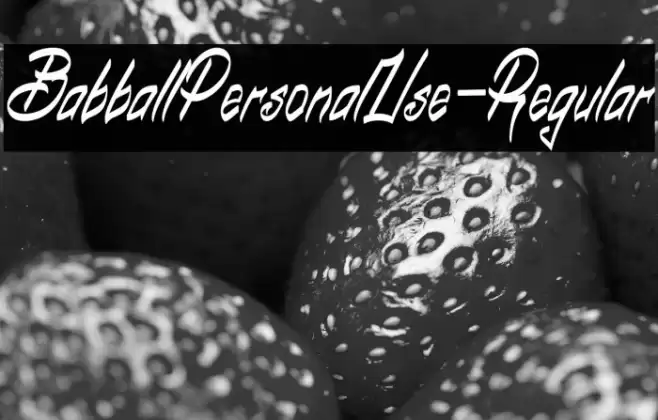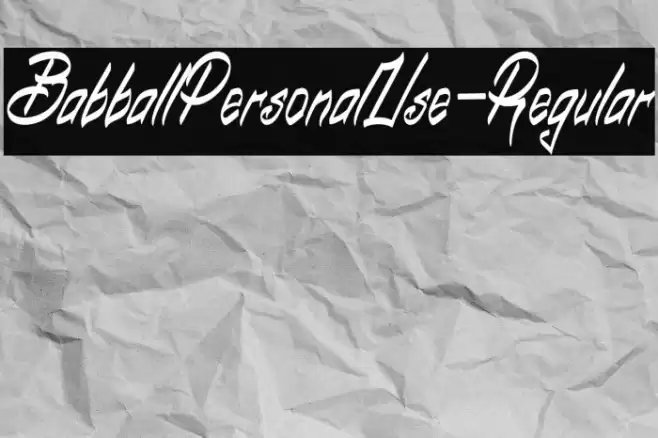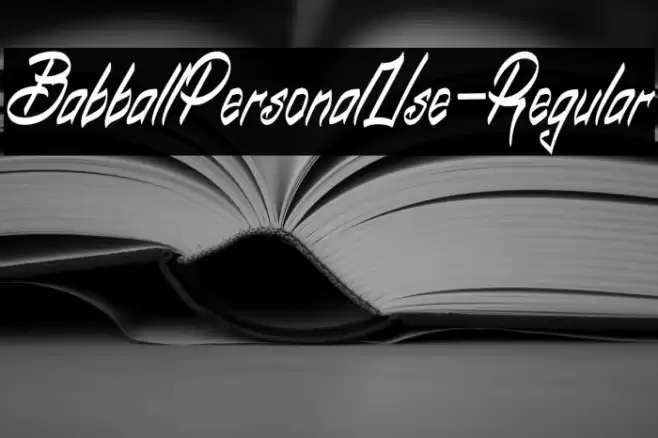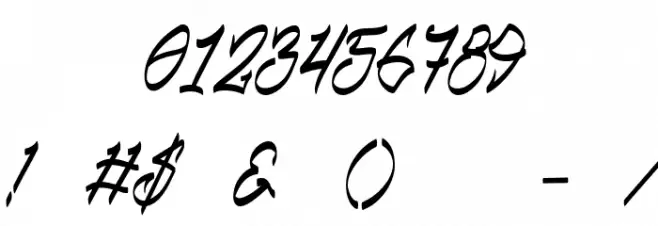
BabballPersonalUse-Regular Font
BabballPersonalUse-Regular Description
This font exhibits a dynamic and flowing script style, characterized by its elegant and fluid strokes. The uppercase letters are bold and sweeping, with a sense of movement that suggests a handwritten quality. The lowercase letters maintain a consistent flow, complementing the uppercase with their graceful curves and loops. Numbers and special characters are designed to match the overall aesthetic, ensuring a cohesive appearance. The font's artistic flair makes it suitable for creative and expressive projects, where a touch of sophistication and personality is desired.
A dynamic and flowing script font with elegant, handwritten strokes from Regular fonts.